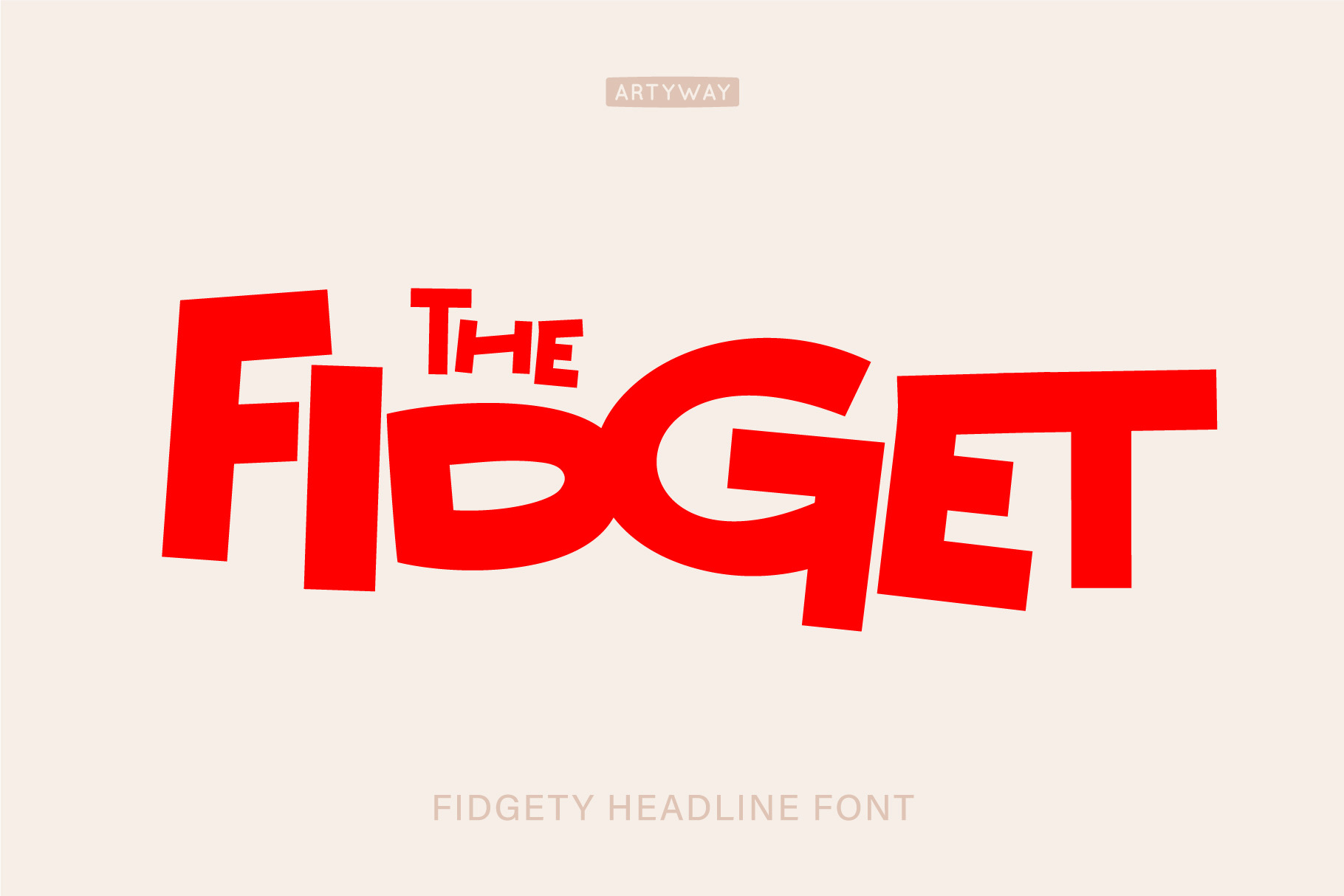
Fidget Font
The Fidget Font – Dancing Letters Full of Energy
Add a burst of playful energy to your designs with the Fidget Font, a vibrant and lively typeface that exudes joy and spontaneity. Its unique, fidgety letterforms are perfect for creating bold and eye-catching graphics that bring celebrations to life.
- Birthday invitations and party decorations
- Festival banners and carnival posters
- Kids’ events and playful branding
- Social media graphics with a festive flair
- Merchandise and creative promotional materials
- Complete set of uppercase and lowercase letters
- Punctuation and essential symbols
- Designed to bring a joyful, groovy vibe to your projects
Let your text dance with the Fidget Font! Perfect for vibrant designs that demand fun, energy, and creativity.